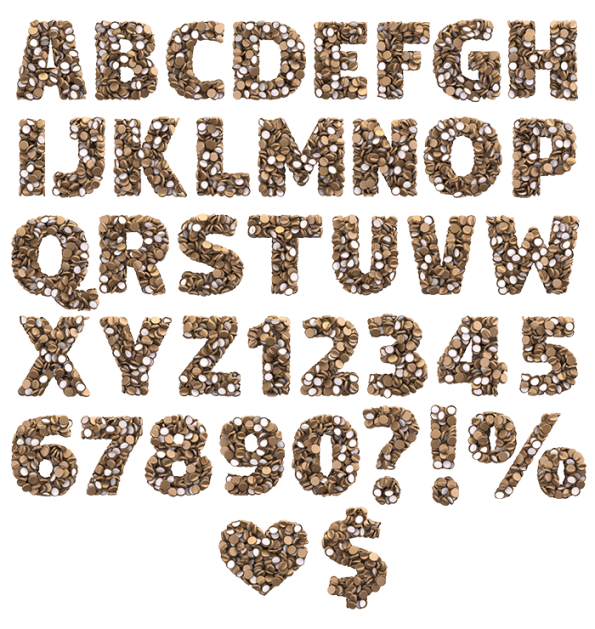
Caps Font. Time For Drink With Unique Typeface
It’s getting warm, and you can have a refreshing drink by opening a bottle sealed with a new unique typeface by Ivan Datskov, Russia – Caps Font. And when you take off these caps, look under the letters of metal alphabet. Perhaps, you will find a message here for you personally.
Cool Font For Producers Of Beverages
Caps Font  by our Russian contributor, Ivan Datskov, is such a cool font that you can mistake the letters of the golden typeface for coins or even seashells. However, this is an illusion: the handmade font consists purely of caps that people use to seal bottles with beverages.
How To Seal Designs With Creative Typeface
Caps Font is a creative typeface that will be very attractive for producers of different kind of beverages like soda, cola, juices, mineral water, etc. Besides, caps has become one of the pop culture symbols. For example, in the Fallout video games series you can see caps in the role of money. If so, you can use this metal typography piece for a computer game as well.